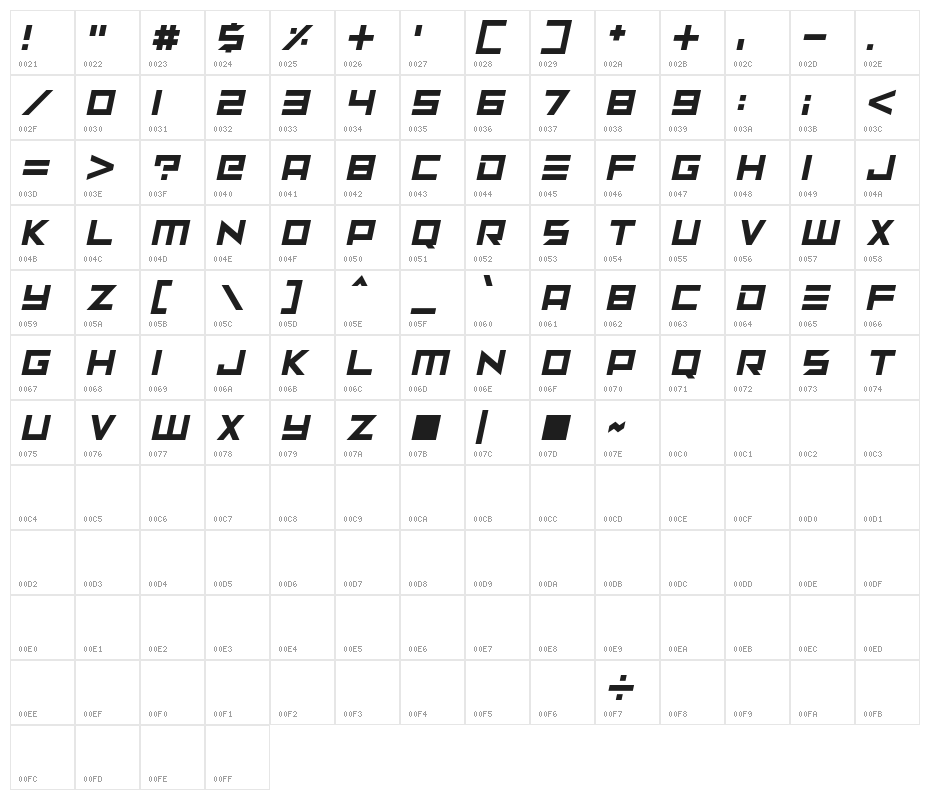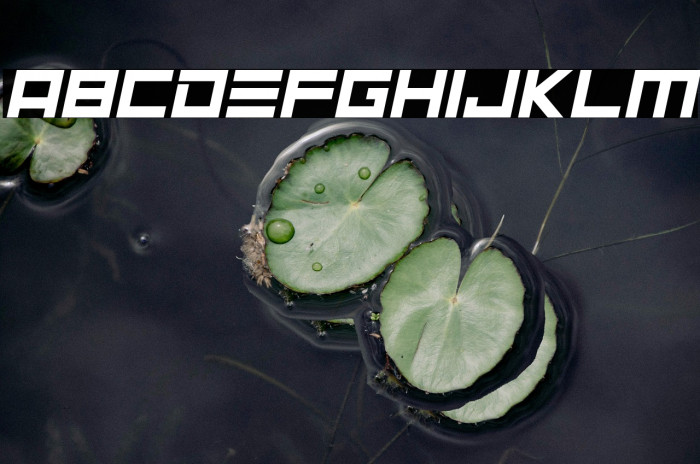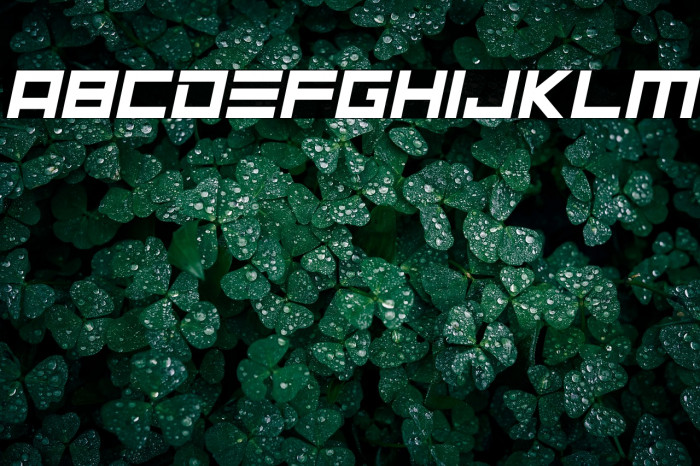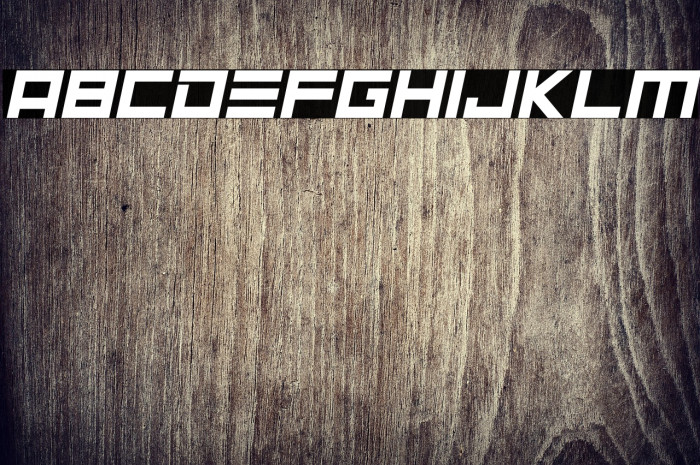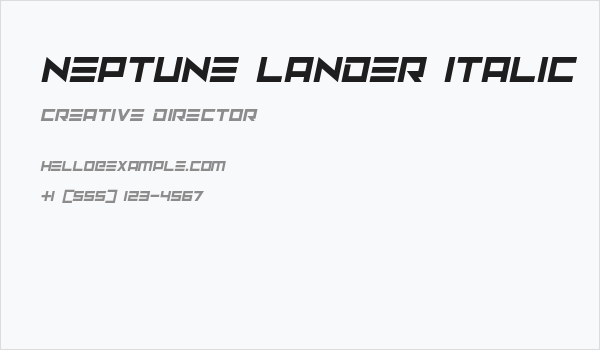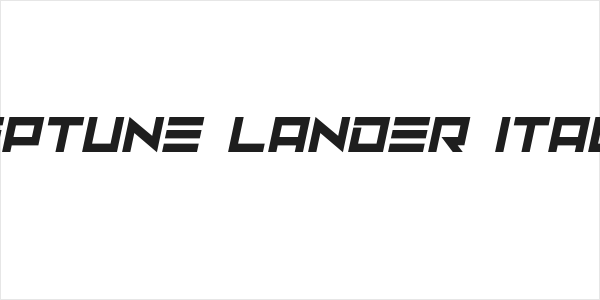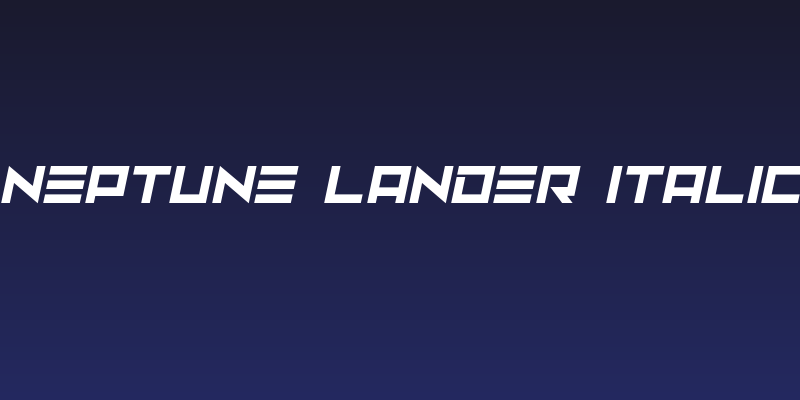
Neptune Lander Italic Font
Neptune Lander Italic Description
This font features a futuristic and angular design, characterized by its bold and italicized letterforms. The geometric shapes and sharp edges give it a dynamic and modern appearance, making it stand out with a sense of motion and energy. The uppercase and lowercase letters maintain a consistent style, with a slight slant that enhances its italic nature. The numerals and special characters follow the same design principles, ensuring uniformity across all glyphs. The font's unique style is suitable for projects that require a contemporary and tech-inspired aesthetic.